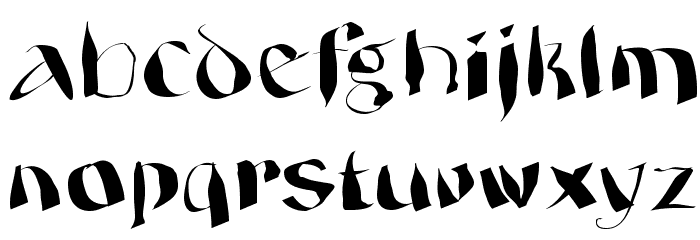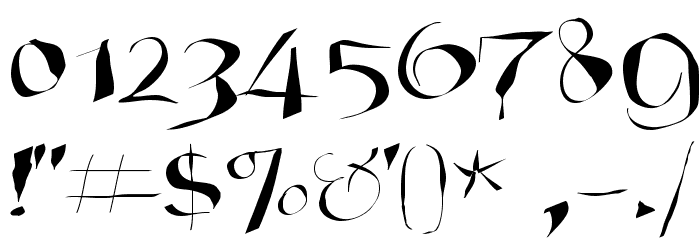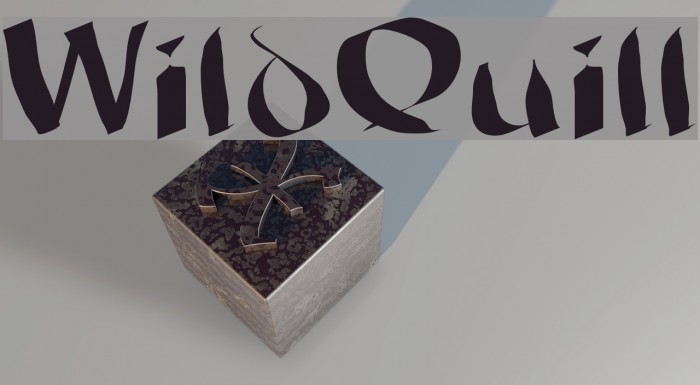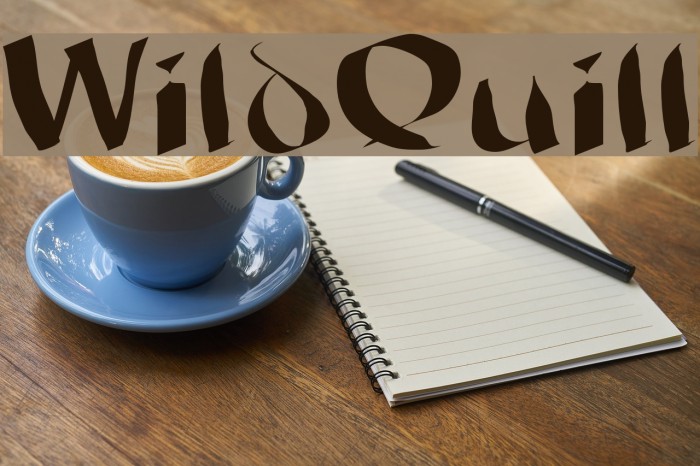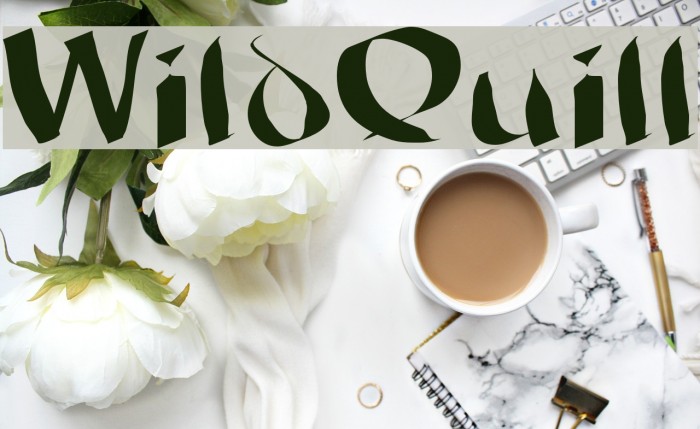
WildQuill Font
This font features a dynamic and expressive style, reminiscent of calligraphic brush strokes. The characters exhibit a fluid motion with sharp, angular edges and varying stroke widths, creating a sense of movement and energy. The uppercase letters are bold and commanding, while the lowercase letters maintain a consistent flow, enhancing readability. The numerals and special characters are crafted with the same artistic flair, ensuring a cohesive look across all elements. This font's unique design makes it suitable for projects that require a touch of elegance and creativity.
A dynamic, calligraphic font with expressive brush-like strokes.
- Proposed Projects: Ideal for artistic posters, invitations, branding, and creative headlines.
- Use Case: Headlines, Logos, Artistic projects